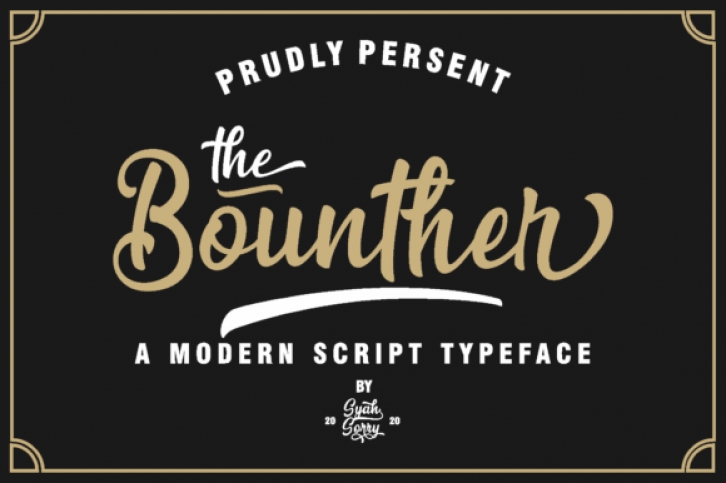
The Bounther is a flowing handwritten font, defined by a vintage style. This font is PUA encoded which means you can access all of the glyphs and swashes with ease! It features a varying baseline, smooth lines, gorgeous glyphs and stunning alternates.